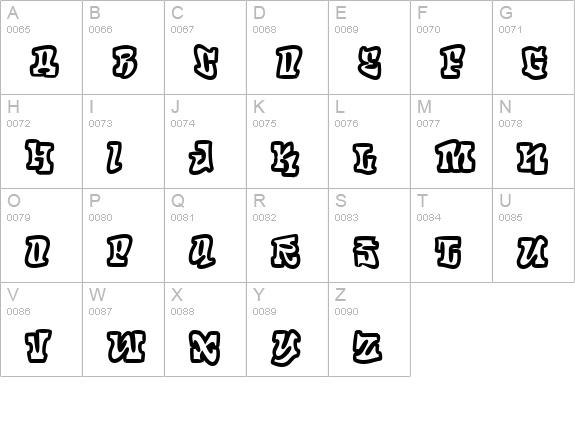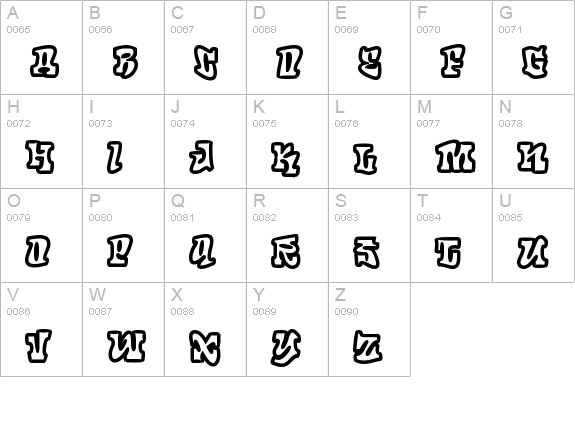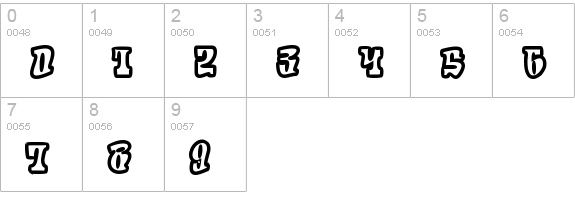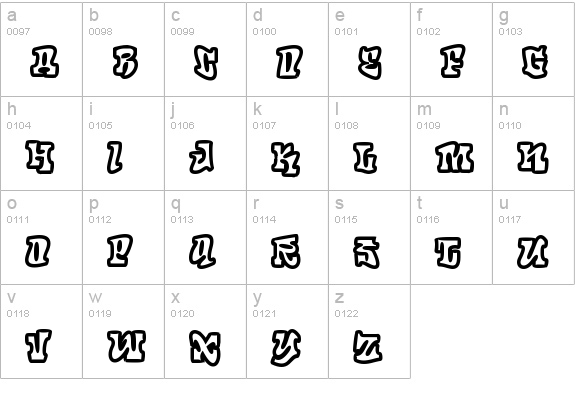
RoteFlora Font Details
RoteFlora font is a unique and eye-catching typeface that exudes a sense of creativity and modernity. With its bold lines and distinctive design, this font is perfect for making a statement in any project. The RoteFlora font is versatile and can be used for a wide range of design applications, from branding to editorial design. What sets RoteFlora font apart is that it is not only visually striking but also completely free to use. Yes, you read that right - this stunning font is freely available to download at FontsMarket.com. Now you can elevate your designs without breaking the bank, thanks to the accessibility of RoteFlora font. Don't miss out on this opportunity to add a touch of sophistication and style to your projects with RoteFlora font.